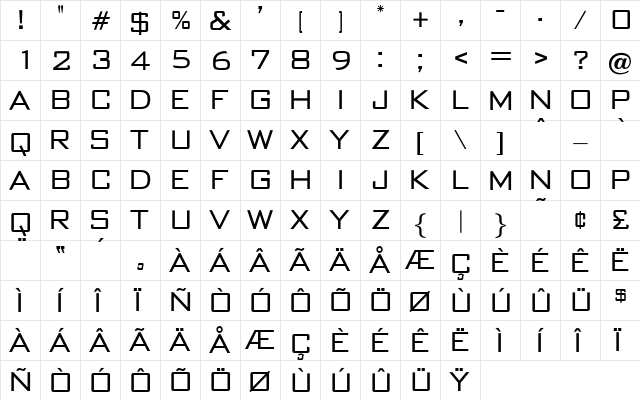
OPTIBankGothic Medium
Design Context for OPTIBankGothic Typeface
OPTIBankGothic takes a clean, functional approach — its unadorned letterforms prioritise legibility and work reliably across screen and print environments.
Font Pairing: Works well alongside a characterful serif or display font that can carry the expressive load while OPTIBankGothic handles the functional copy.
Pro Tip: Pair OPTIBankGothic with a display or serif font for headlines — its neutral character makes it an excellent supporting player in complex typographic systems.